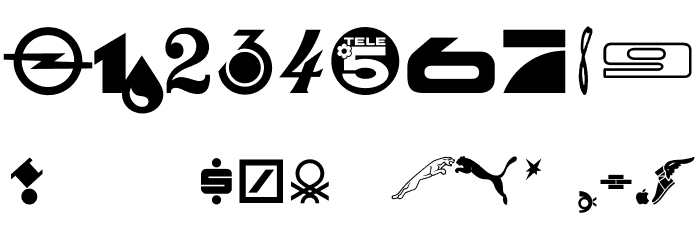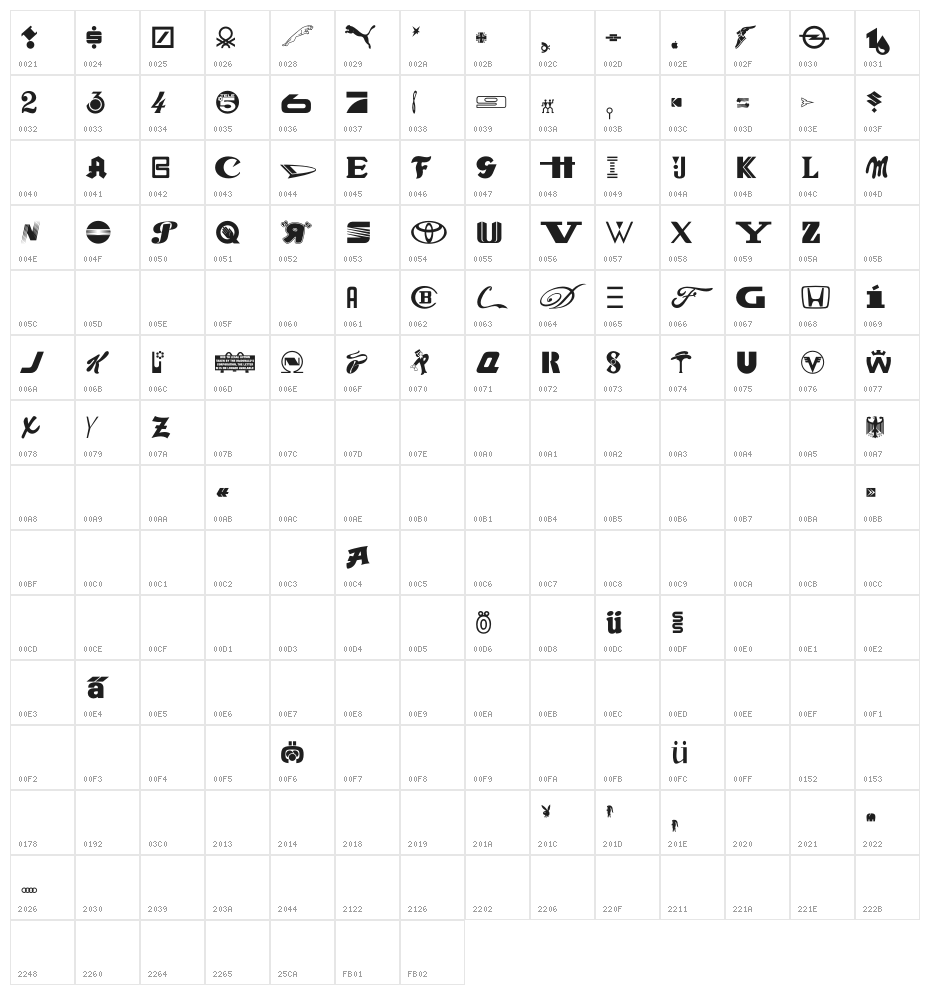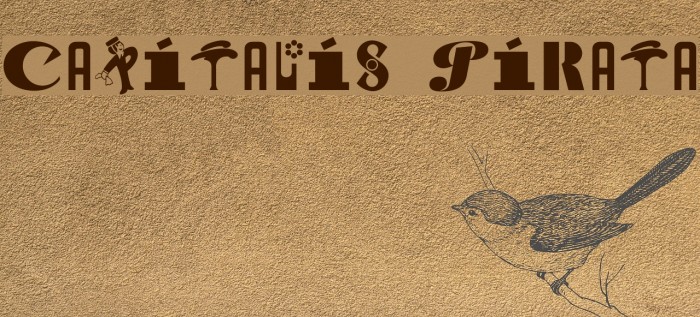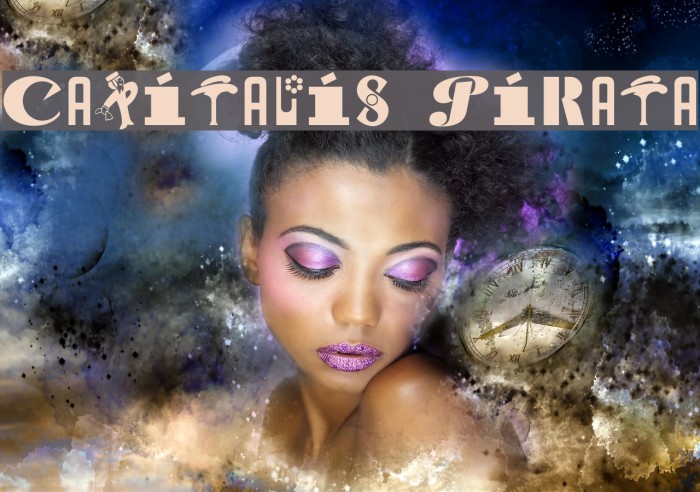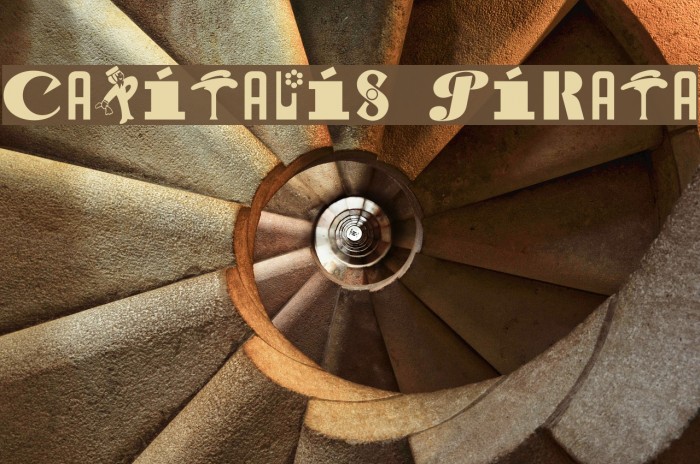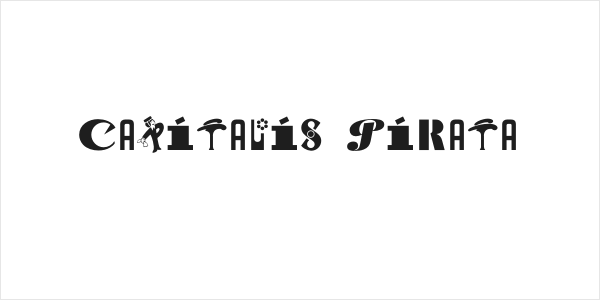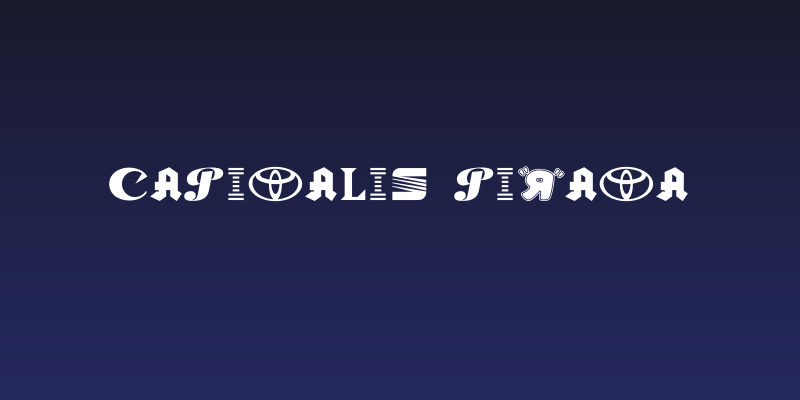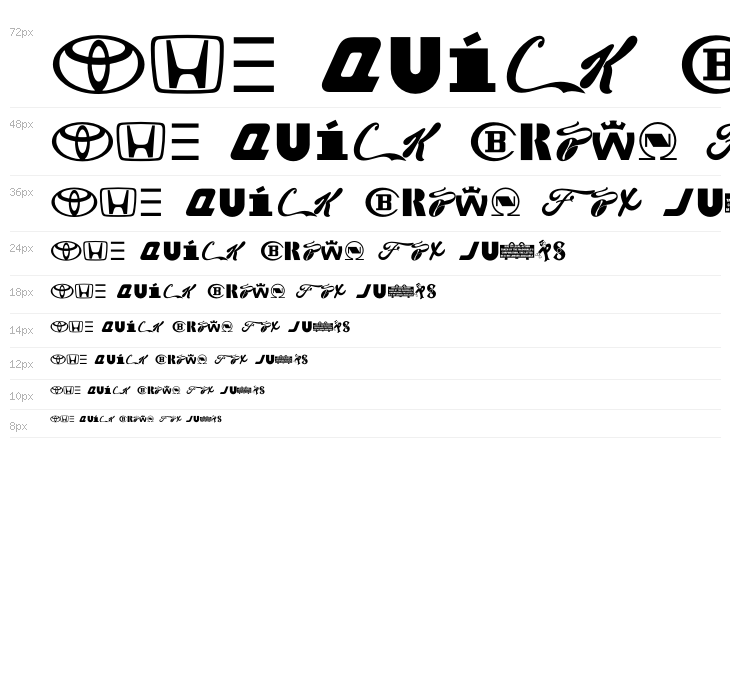
Capitalis Pirata Font
Capitalis Pirata Description
This font is a highly decorative and eclectic collection of characters, each uniquely styled with intricate details and varying motifs. The uppercase letters feature a diverse range of designs, from sharp, angular forms to smooth, flowing curves. Some characters incorporate elements like arrows, waves, and abstract shapes, creating a dynamic and visually engaging appearance. The lowercase letters continue this theme, with each character presenting a distinct and imaginative design. Numbers and special characters are equally varied, featuring bold, creative interpretations that maintain the font's playful and artistic nature. Overall, this font is a showcase of creativity, offering a wide array of styles within a single typeface.